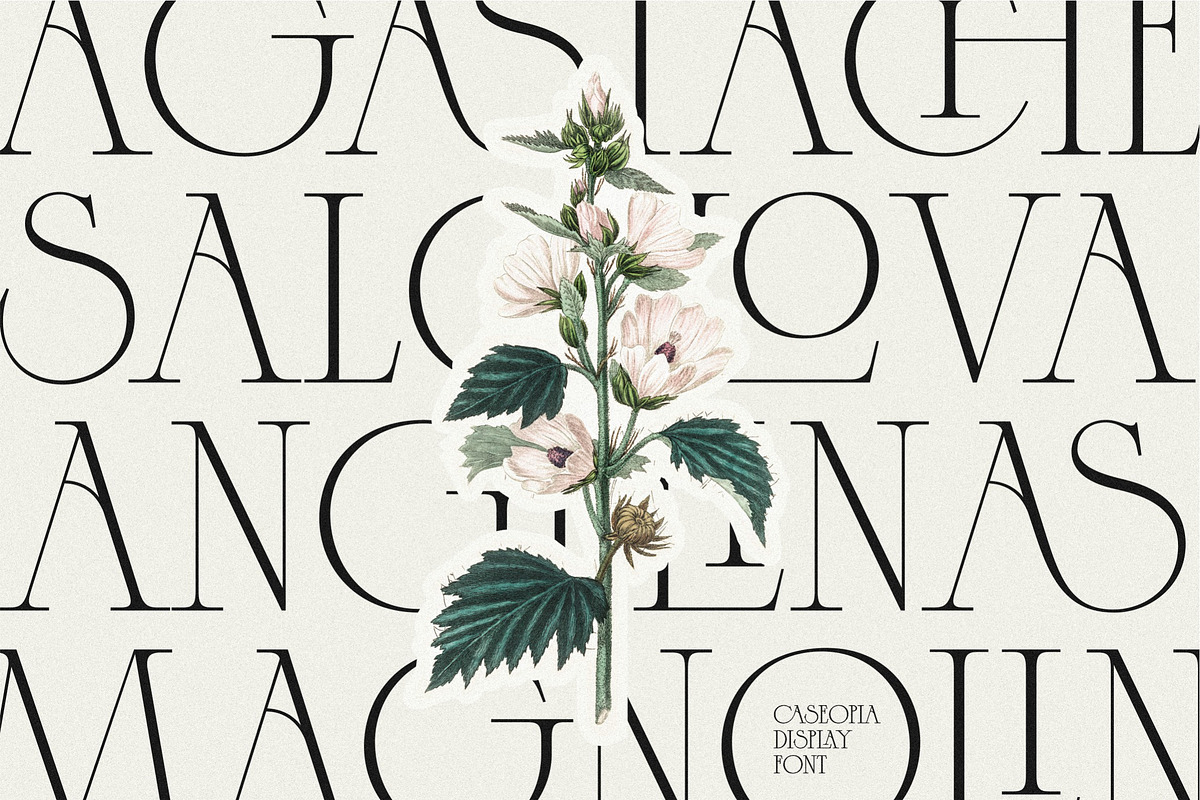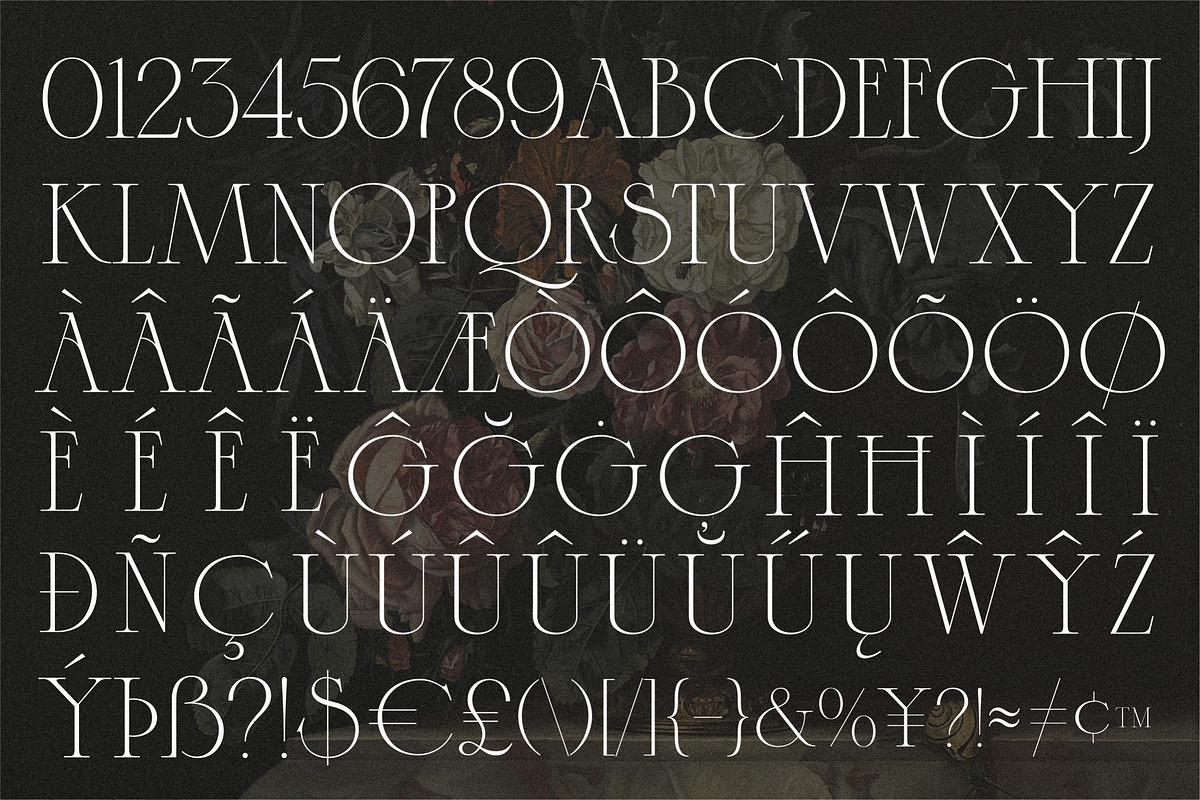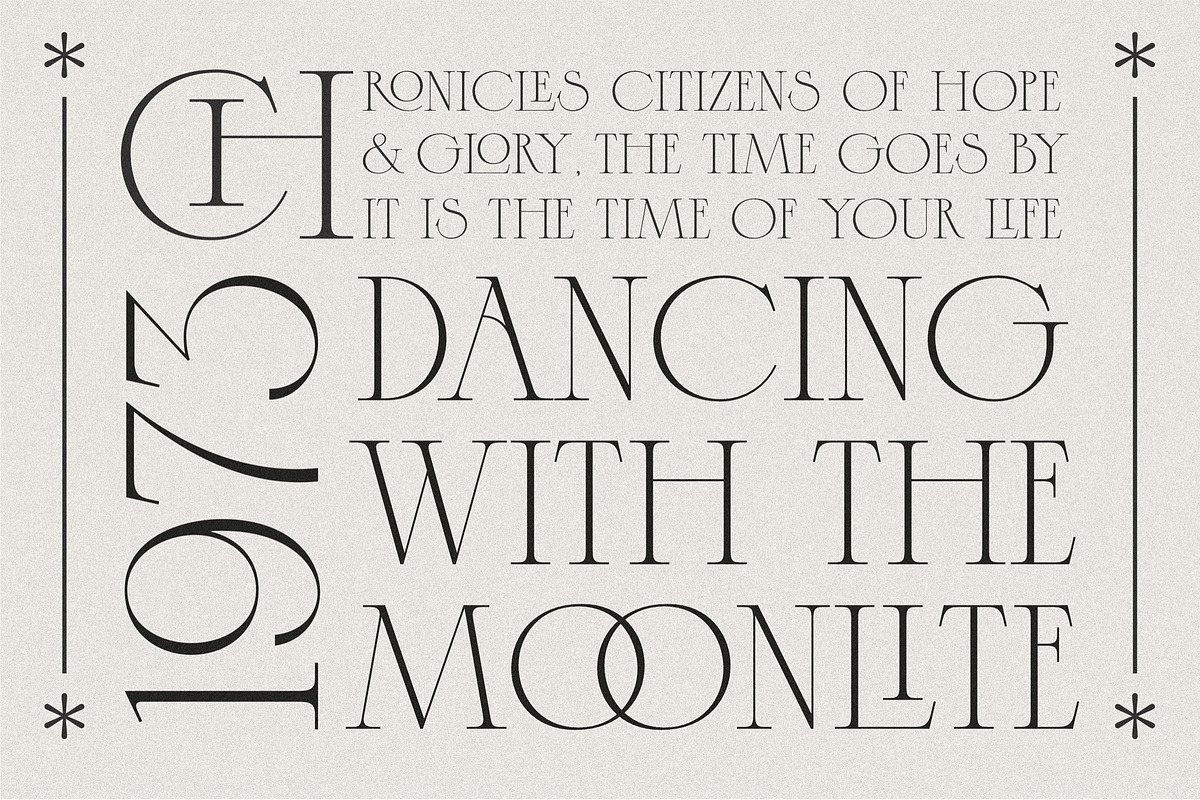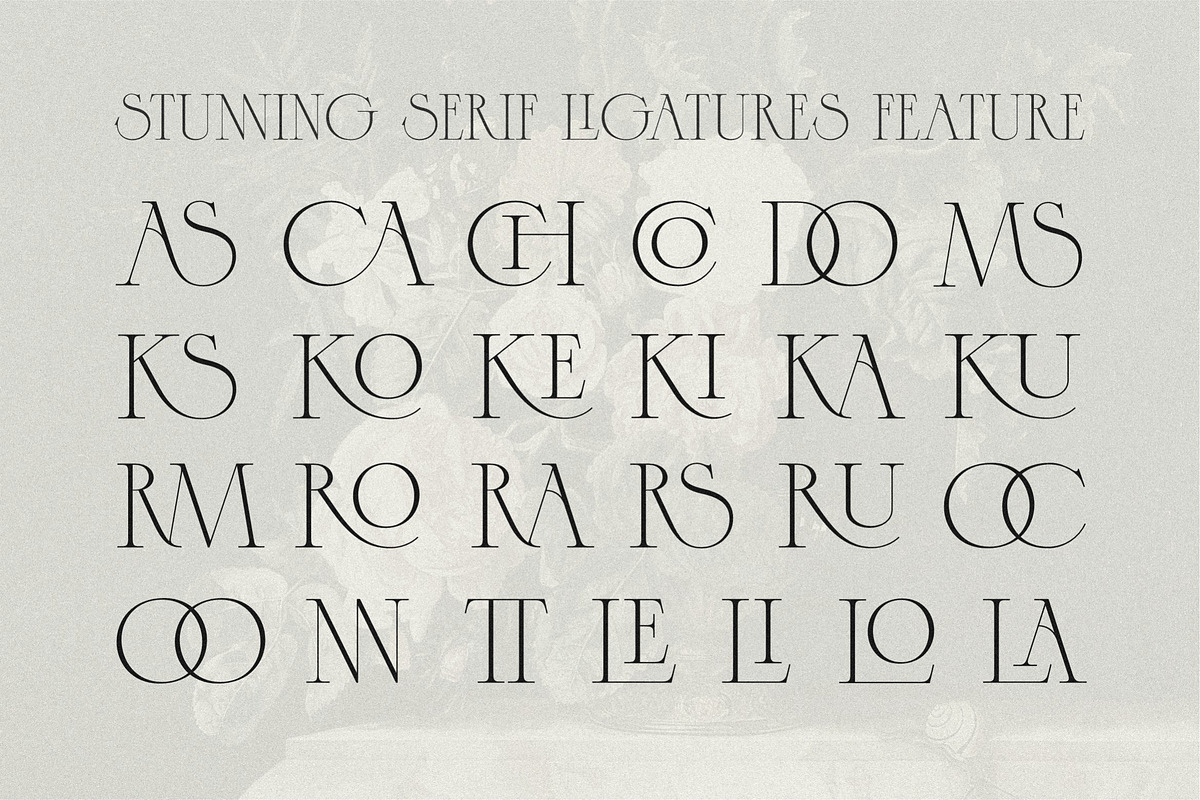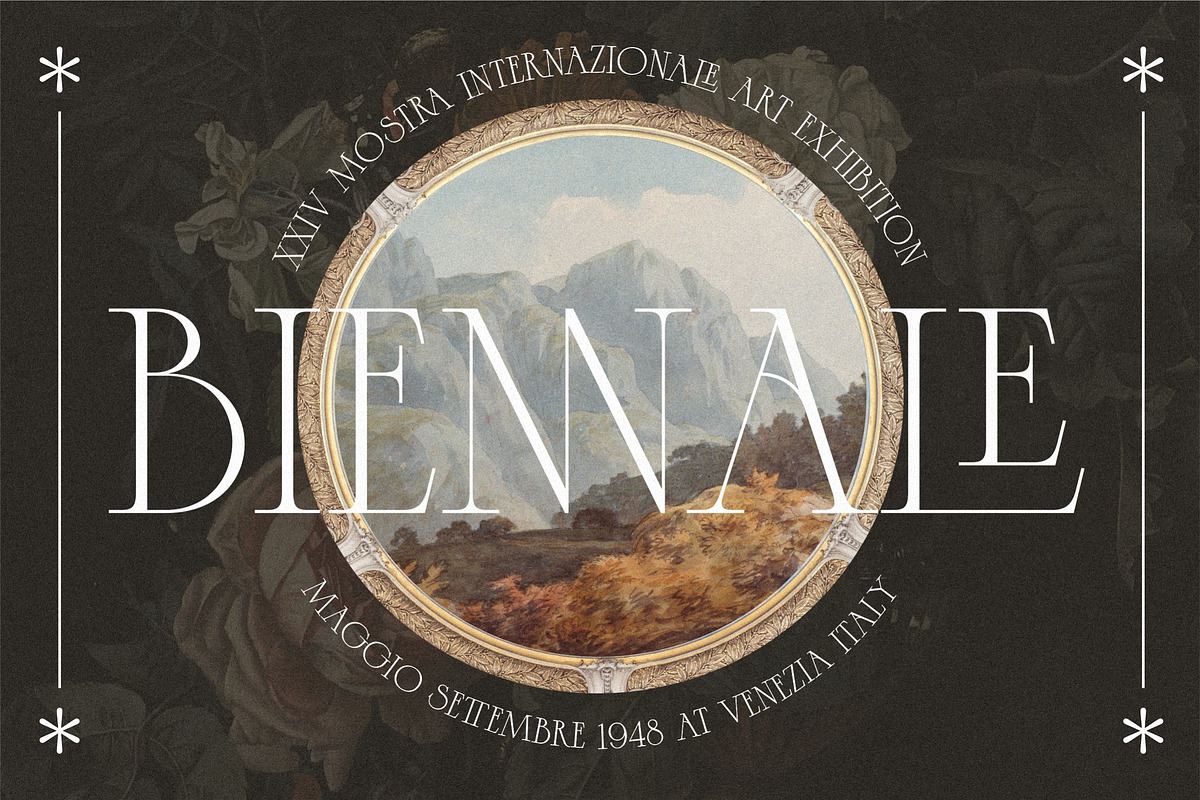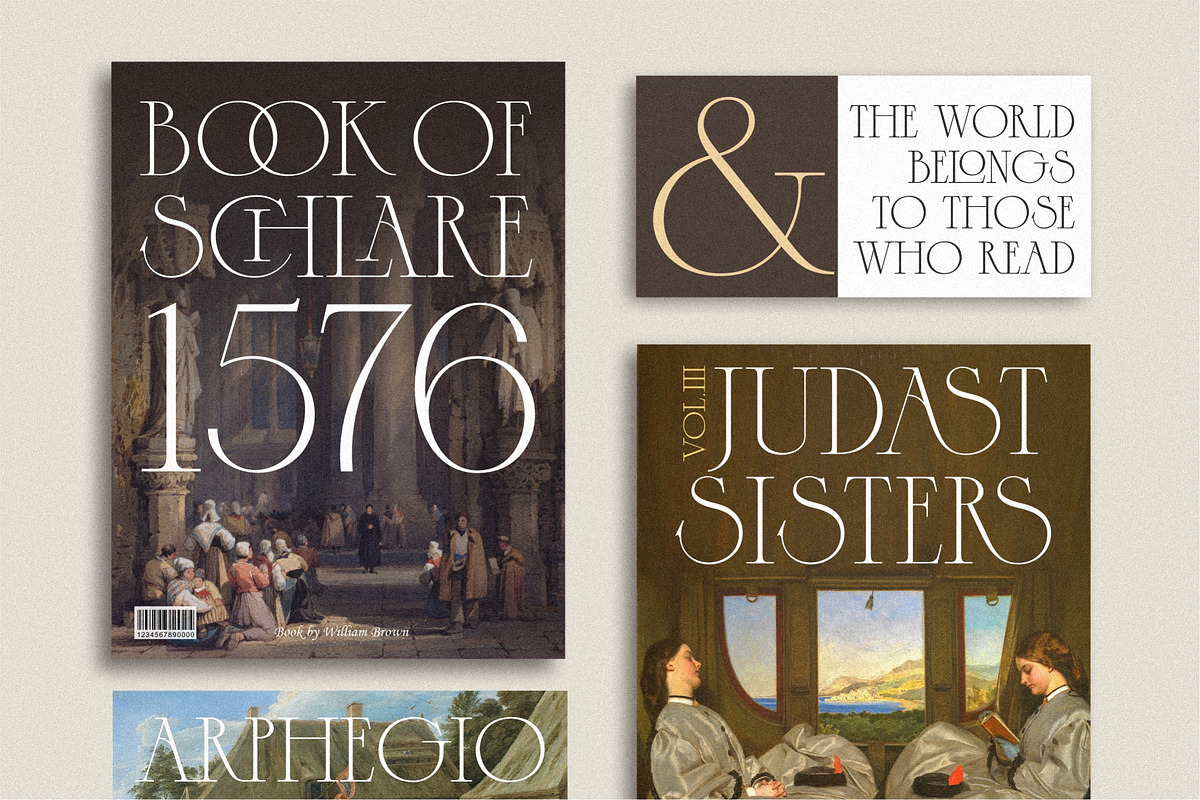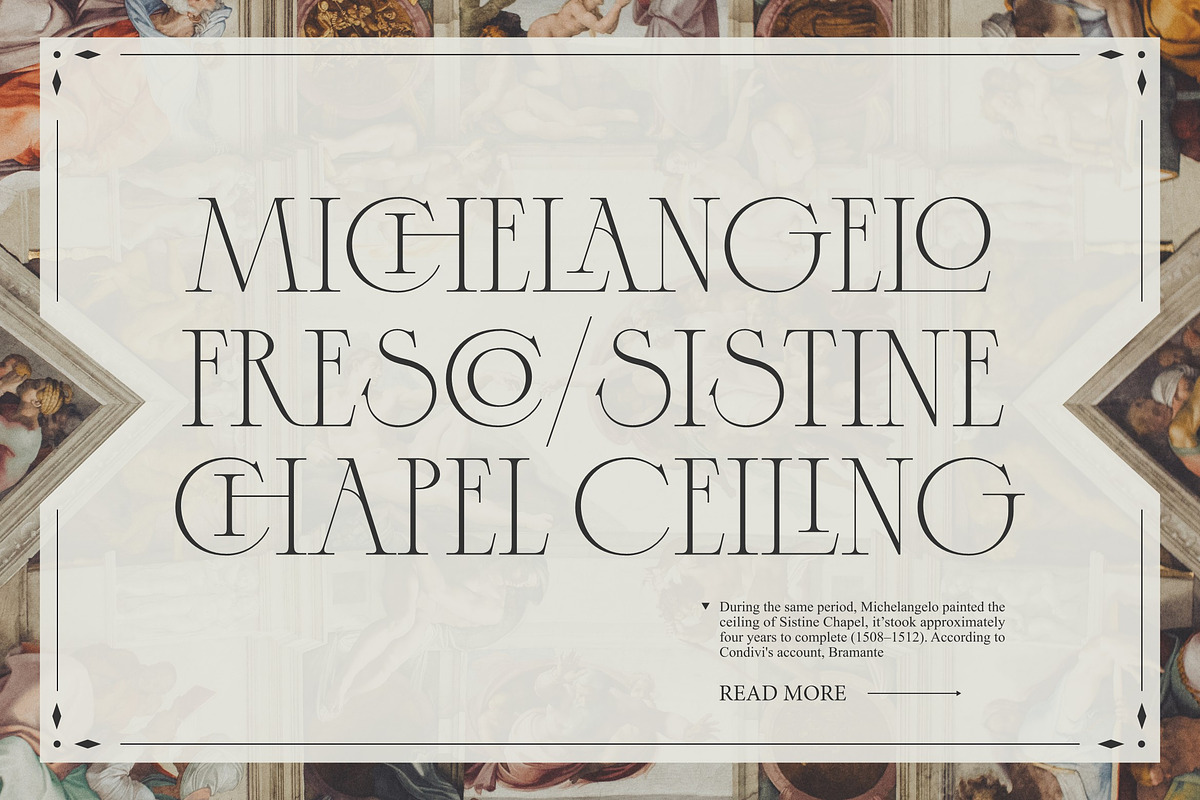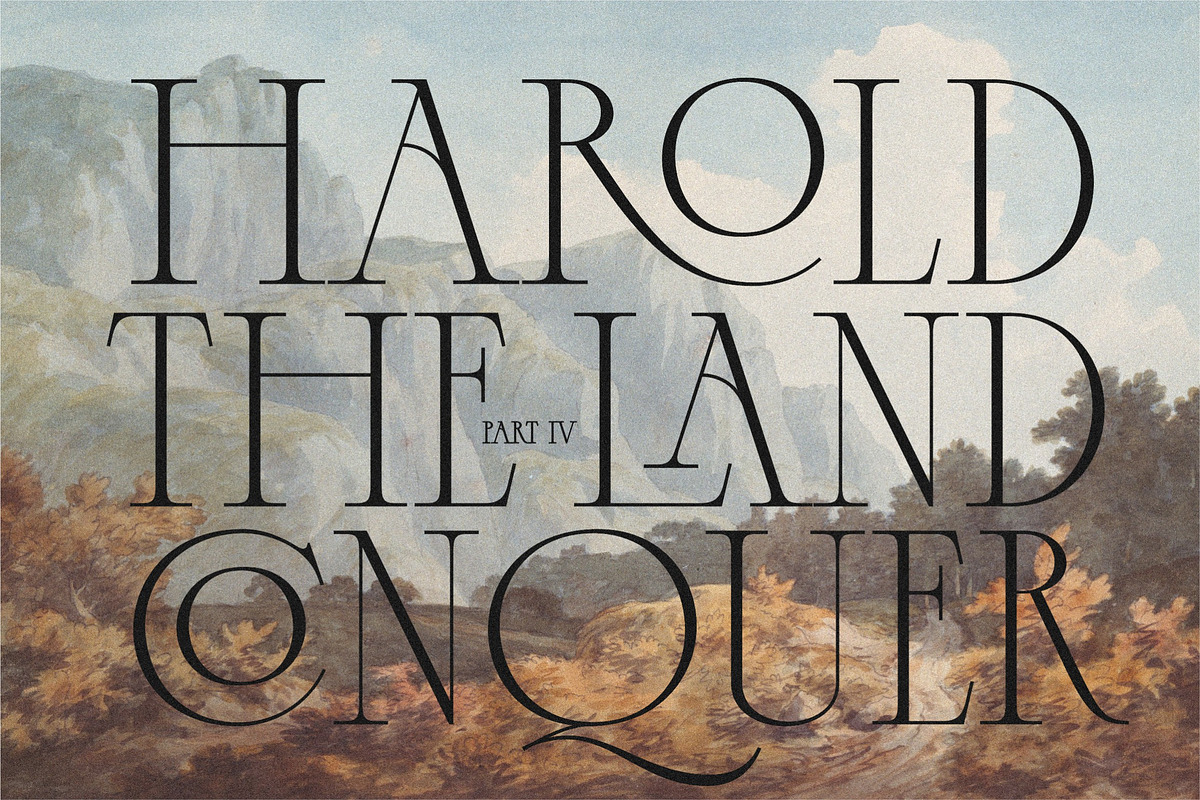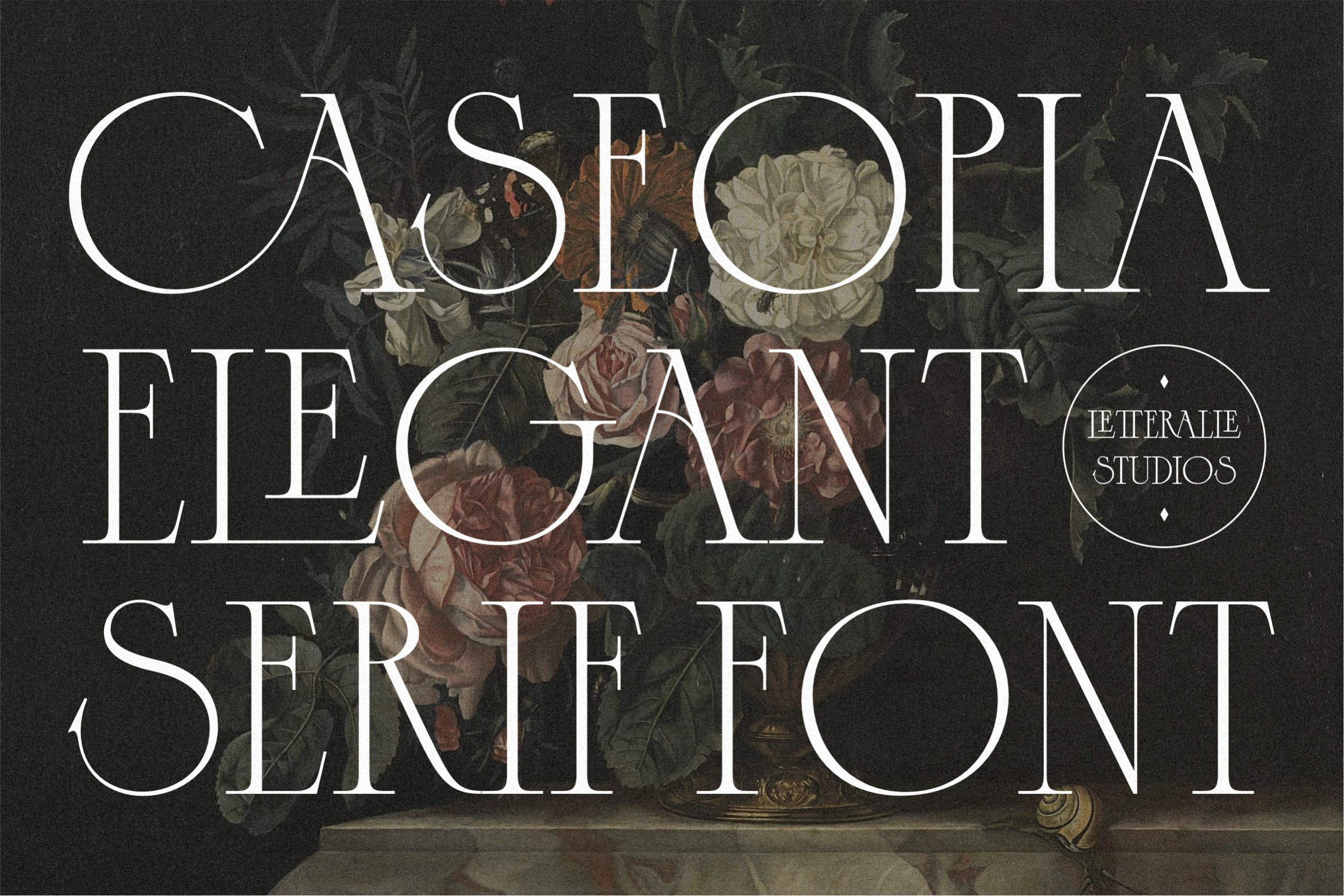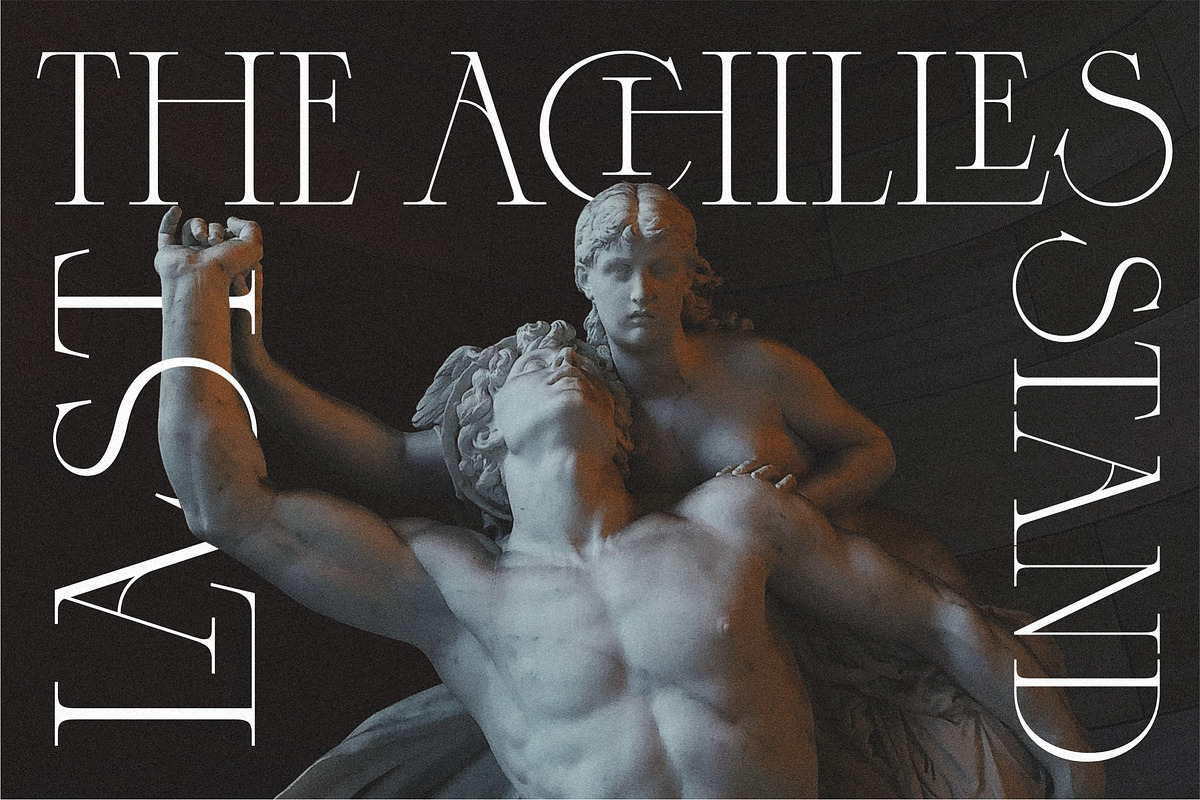
Caseopia Elegant Display Serif Font
Introducing, Caseopia Font. Caseopia is a modern font that takes a classic style. Designed to give the impression of elegance and luxury with a classic feel. Contains uppercase-only characters, all punctuation & numerals. There are also ligatures that will bring a unique style.
Caseopia is perfect for editorial projects, Logo design, Wedding, Clothing Branding, product packaging, magazine headers, or simply as a stylish text overlay to any background image.
- Alternates & Ligatures.
- Numeral, Punctuation, Multilingual Accents.